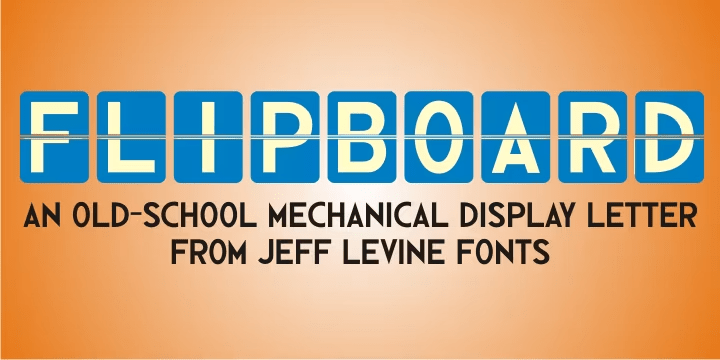
Flipboard
You’ve seen them all around—on alarm clocks, tote boards, scoreboards and in many other venues we take for granted in our daily lives—displays with letters and numbers that flip down to reveal other letters or numbers. Flipboard JNL is a digital recreation of these mechanical sign displays. There is a limited character set, and a blank panel is located on the equal sign keystroke.
Flipboard JNL Regular by Jeff Levine Fonts